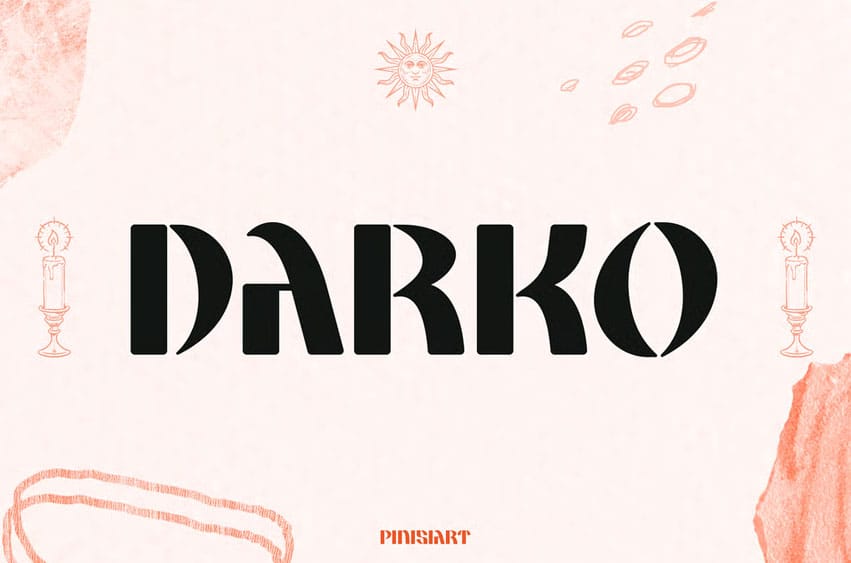
Darko Font revives the spirit of traditional blackletter with a fresh geometric rhythm, making it bold, sharp, and unexpectedly modern. The letterforms preserve historical charm while embracing streamlined edges—an ideal blend for high-concept editorial spreads, cultural branding, art exhibitions, travel posters, classical packaging, or bold logos.
From museum titles to avant-garde branding, DARKO brings strength, artistry, and unmistakable presence. With both uppercase and lowercase, it becomes more flexible than most heritage-styled fonts.
Where history meets modern edge. DARKO turns every layout into a legacy. This is the font that speaks of empires, sculptures, and stories worth telling—with a voice that’s sharp, majestic, and unmistakably bold.
- Blackletter-Inspired Serif Font – Historical vibes with modernized, readable shapes
- Sharp yet Elegant Letterforms – Dramatic serifs, curves, and angled terminals for impact
- Uppercase & Lowercase – Includes versatile casing for better headline hierarchy
- Ideal for Editorial & Branding – Great for magazines, books, tourism, exhibitions, and galleries
- Strong Presence in Logos – Designed to dominate packaging, signage, trucks, and ads
Channel ancient power with modern flair—make DARKO your voice of bold elegance.